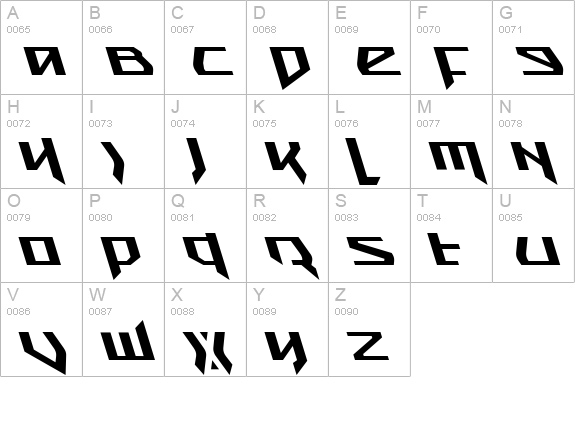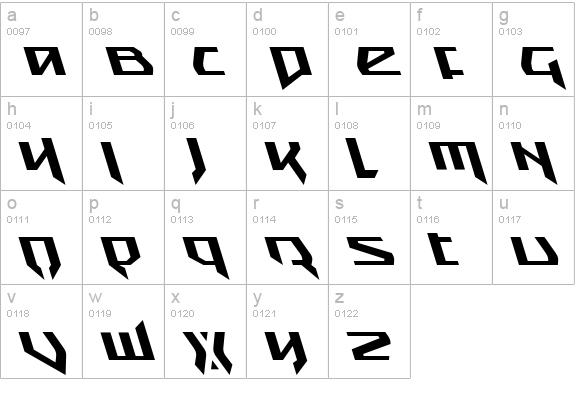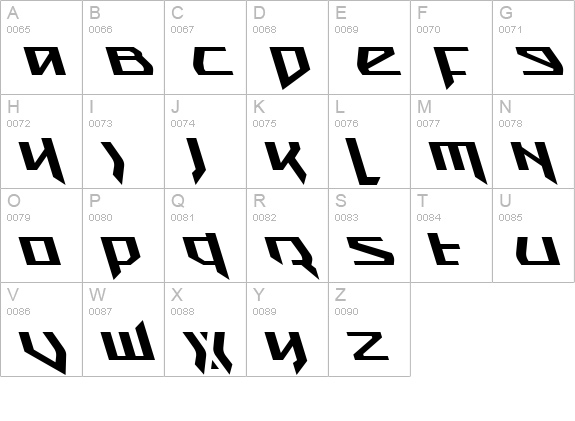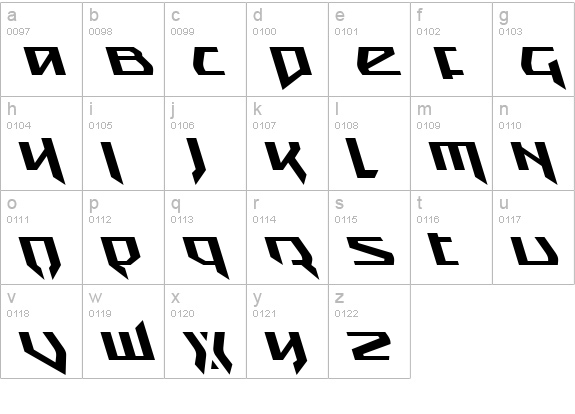
Introducing Snubfighter Leftalic font - a sleek and modern typeface designed to make a bold statement in your projects. With its sharp angles and distinctive curves, Snubfighter Leftalic exudes a sense of sophistication and creativity. This versatile font is perfect for branding, advertising, headlines, and more. But the best part? Snubfighter Leftalic is absolutely free to download at FontsMarket.com! That's right, you can elevate your designs with this eye-catching font without breaking the bank. Don't miss out on the opportunity to add Snubfighter Leftalic to your font collection today.